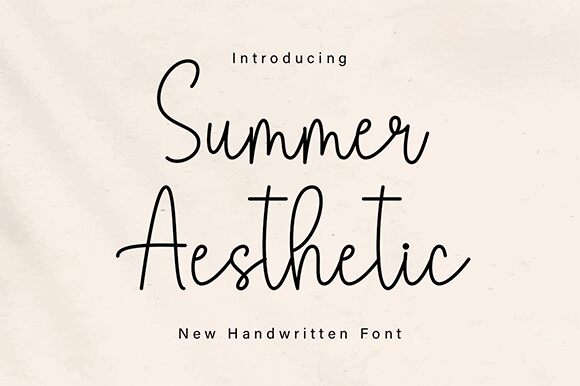
Summer Aesthetic
Summer Aesthetic font by DN Creative is a light handwritten font that captures the essence of casual elegance. With a romantic and flowing structure, this typeface carries modern script influences that give it an approachable look. The handwriting feel guarantees its ability to effortlessly communicate easier with audiences.